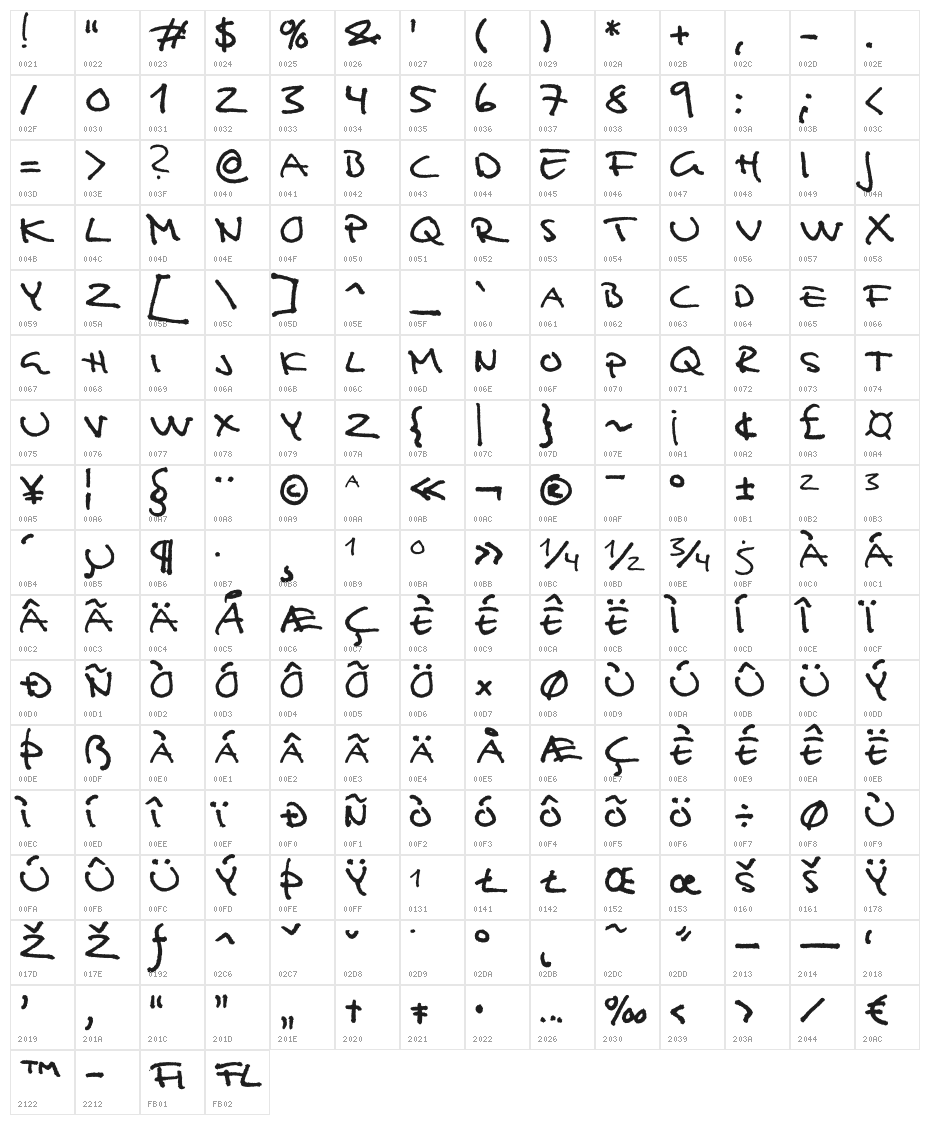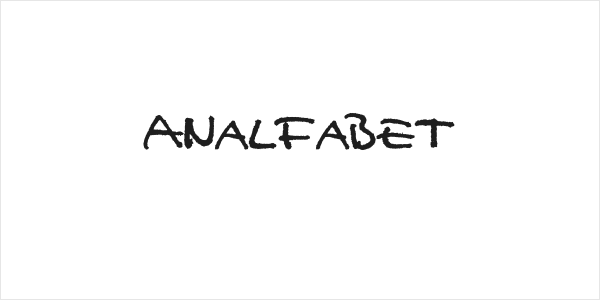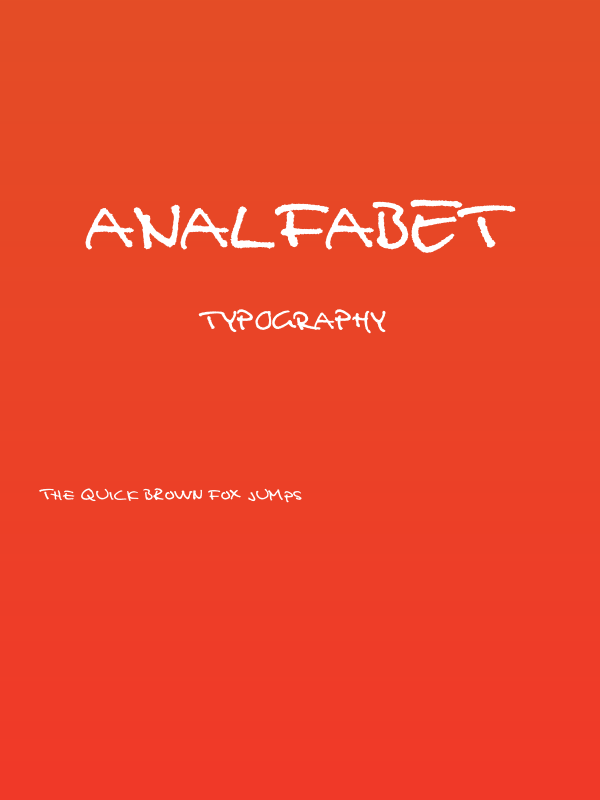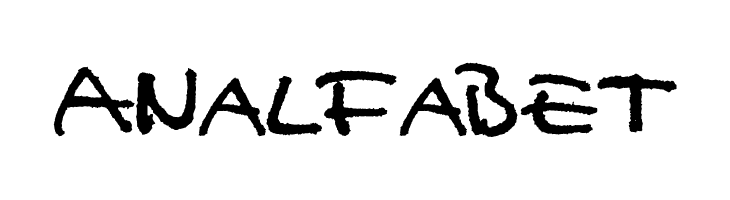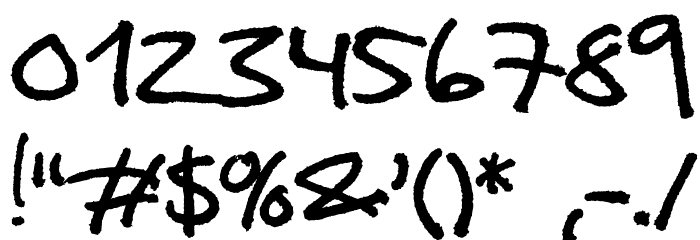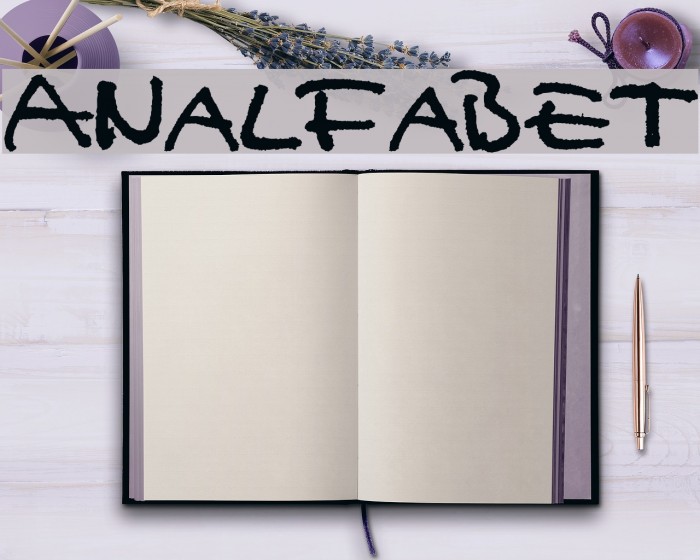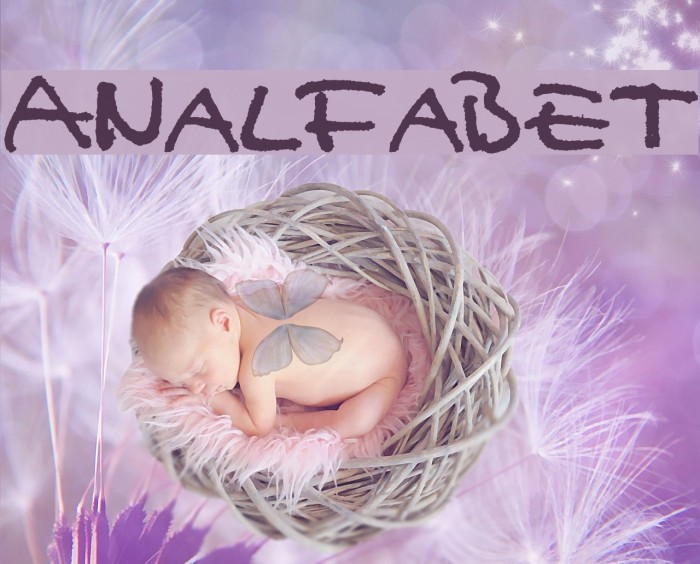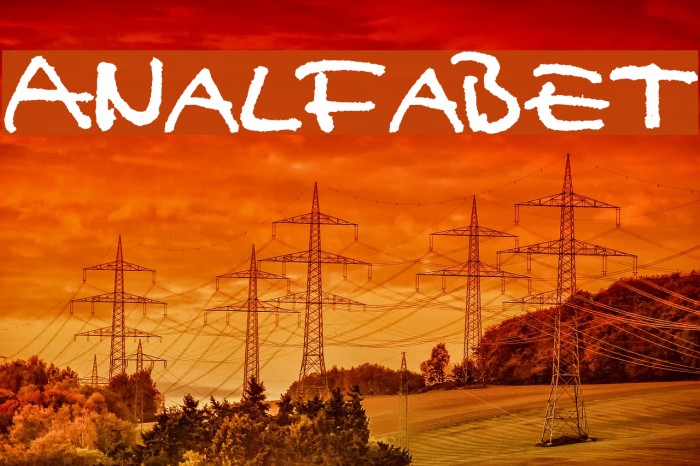
Analfabet Font
Analfabet Description
This font has a casual, handwritten style that mimics the look of natural handwriting. The letters are slightly uneven, giving it an authentic and personal touch. The strokes are bold and expressive, with a playful and informal appearance. It features a consistent flow with rounded edges and a slight slant, enhancing its approachable and friendly vibe. The numbers and special characters maintain the same handwritten aesthetic, making it versatile for various informal applications.
| Use Case | Logos, Headlines, Informal text |
| Proposed Projects | Ideal for personal notes, greeting cards, informal invitations, and creative projects that require a personal touch. |